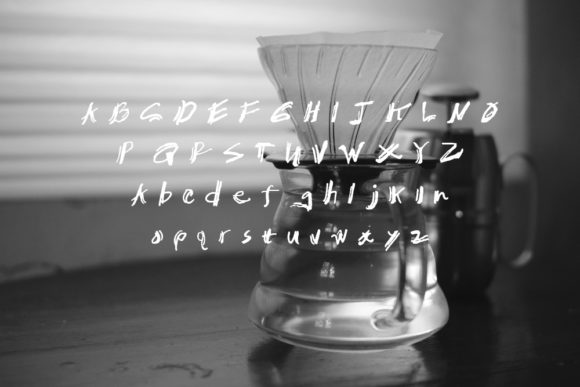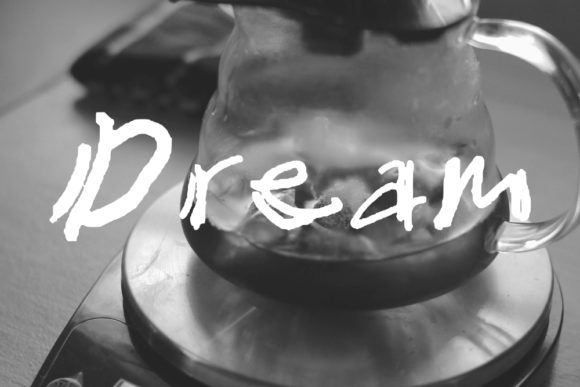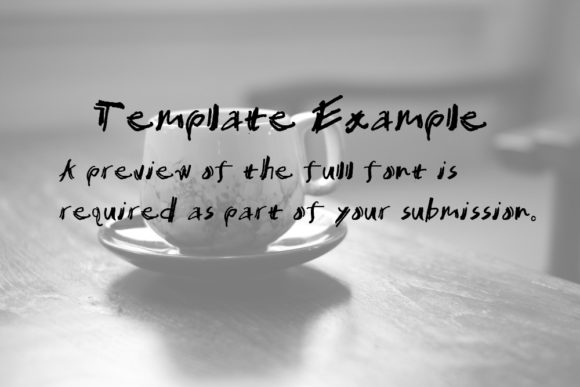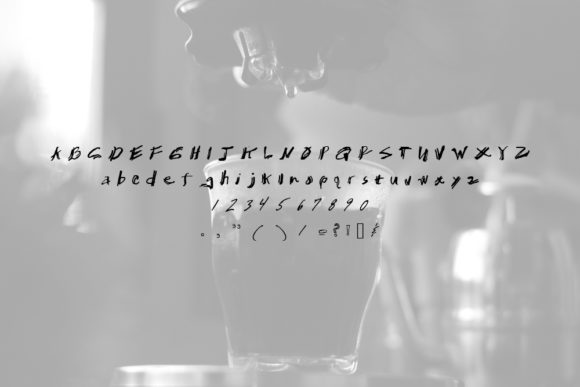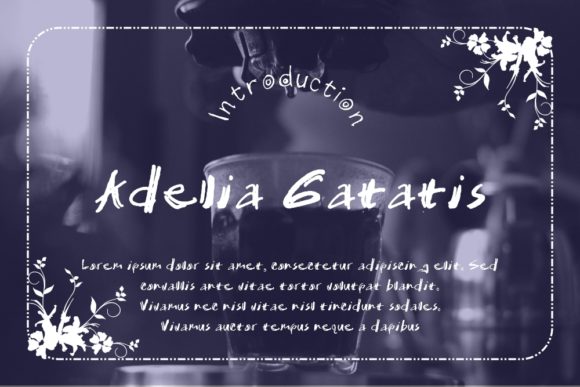
The Designer’s Delight: Exploring the Unique Adelia Gatatis Font
I’ll never forget the time I was working on a project for a client who wanted a font that was both elegant and quirky. I spent hours scouring the internet for the perfect match, but nothing seemed quite right. That was until I stumbled upon Adelia Gatatis, a unique and interesting handwritten font that instantly caught my eye. Distinct and special, this font looks incredibly adept on a wide variety of contexts!
So, what makes Adelia Gatatis so special? Let’s dive into the good stuff and a few quirks I’ve discovered.
- ✨ Unique and eye-catching letterforms that add a touch of personality to any design
- 💫 Works beautifully in a variety of contexts, from digital designs to print materials
- 🎨 Supports OpenType features, glyphs, and stylistic alternates for added versatility
While Adelia Gatatis is an amazing font, there are a few things to keep in mind:
- ⚠️ Not all platforms support OpenType features, so be sure to test before finalizing your design
Adelia Gatatis was designed with the intention of creating a unique, handwritten font that could add a touch of personality to any design. The designer, who wishes to remain anonymous, drew inspiration from a variety of sources, including classic script fonts and modern calligraphy.
Q: What type of projects is Adelia Gatatis best suited for?
A: Adelia Gatatis is incredibly versatile and can be used in a wide range of projects, from digital designs to print materials.
Q: Does Adelia Gatatis support OpenType features?
A: Yes, Adelia Gatatis supports OpenType features, glyphs, and stylistic alternates, making it a great choice for designers who want to add an extra layer of creativity to their work.
Q: Is Adelia Gatatis easy to read?
A: Yes, Adelia Gatatis is highly legible, even at smaller font sizes, making it a great choice for body text or headings.